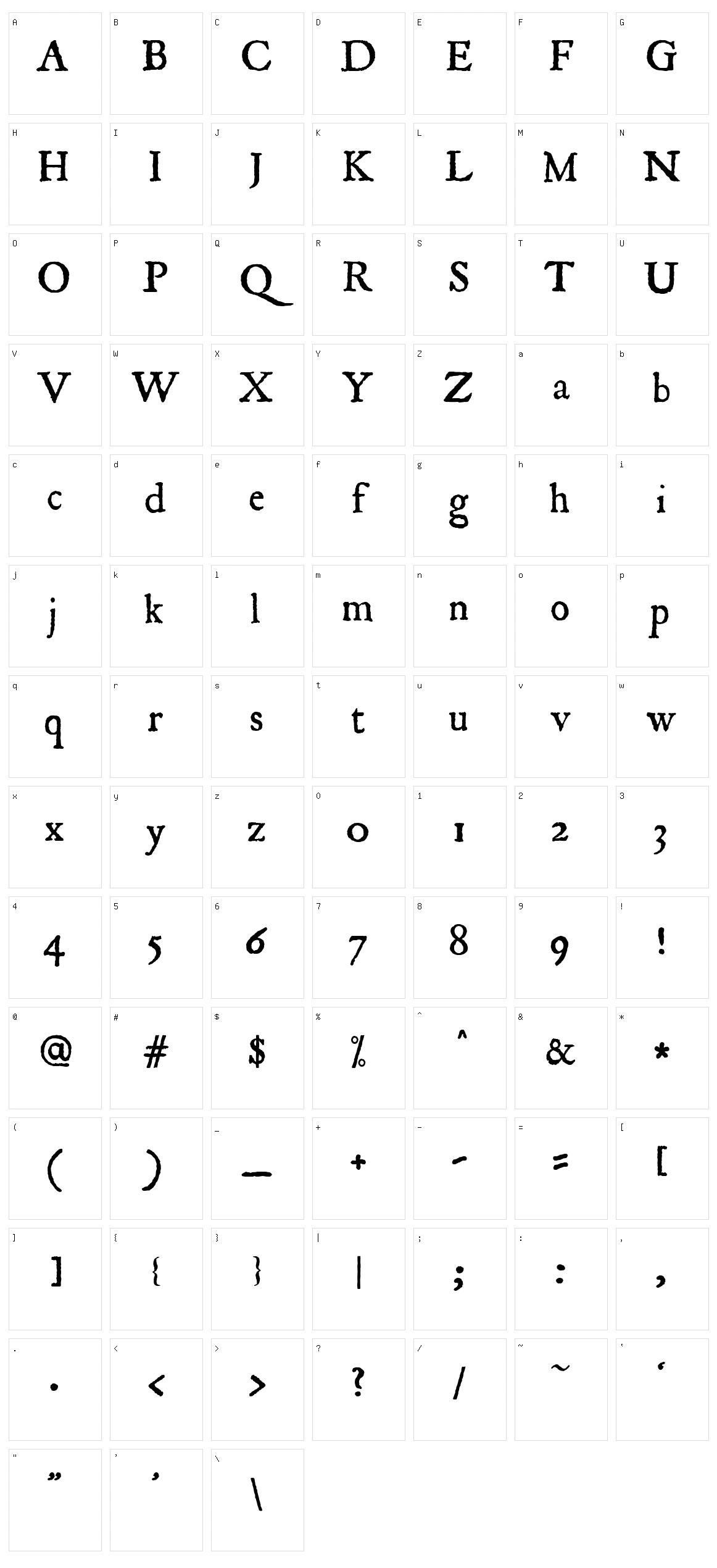
The "JSL Ancient" and "JSL Ancient Italic" fonts are based upon two
nearly identical typefaces of seventeenth-century English printers.
The first source used was "A compendious view of the late tumults &
troubles in this kingdom by way of annals for seven years", by James
Wright, printed by Edward Jones in 1685; the second was "Ars Pictoria,
or an Academy treating of Drawing, Painting, Limning and Etching", by
Alexander Browne, printed by J. Redmayne in 1668.
The two source typefaces are nearly identical, and the most interesting
features, such as the descender on the italic capital N, are present
in both. I used Redmayne's typeface primarily to fill in the missing
letters from Jones'. Both typefaces had several different versions of
certain italic capitals; I chose the more interesting ones. One feature
of Redmayne's italic typeface that was lacking in Jones' was the
peculiar extensions of horizontal strokes, used to reduce the amount of
whitespace used when justifying shorter lines of text. (I may eventually
produce a "JSL Ancient Italic Bold" which includes these extended
letters.)